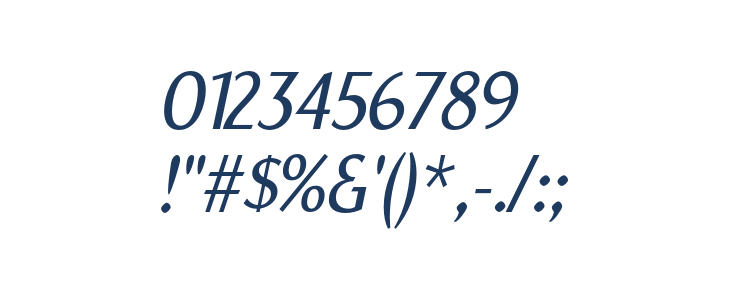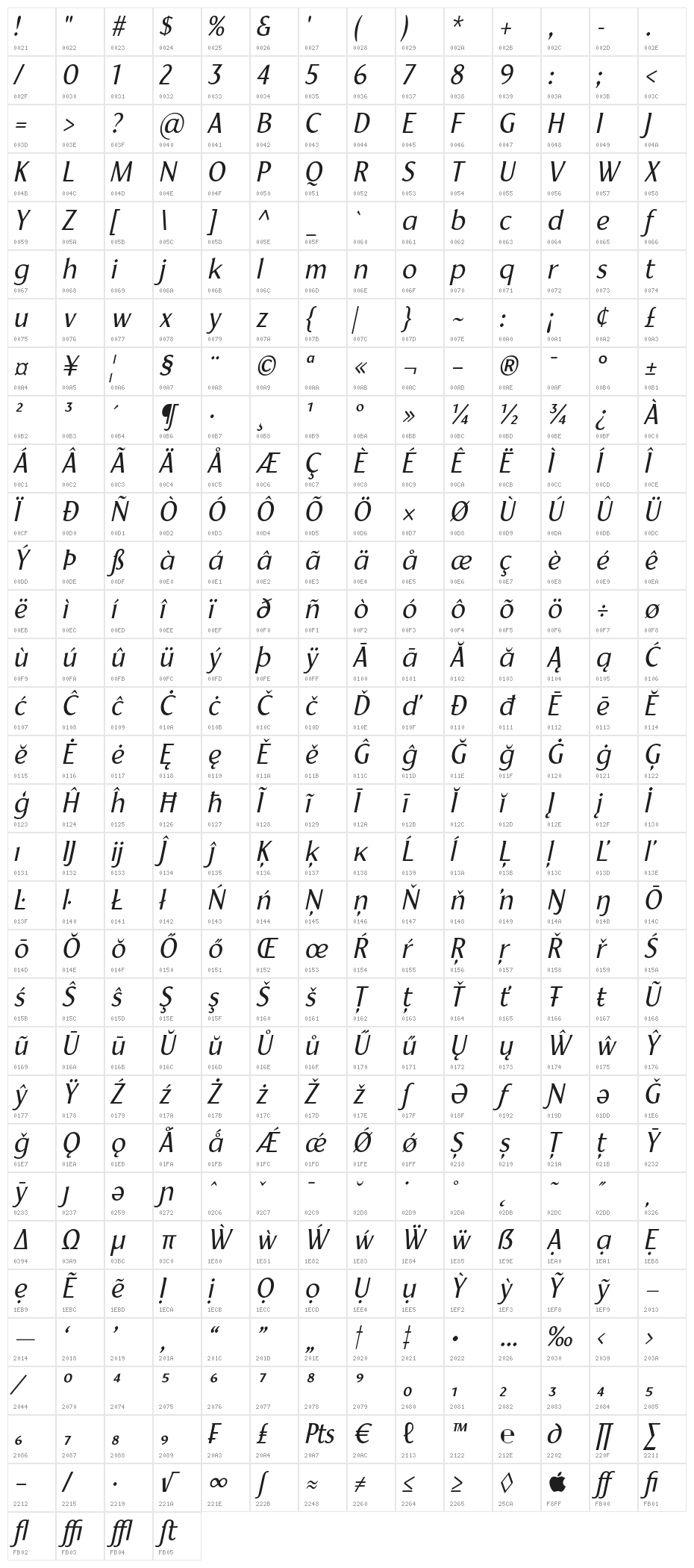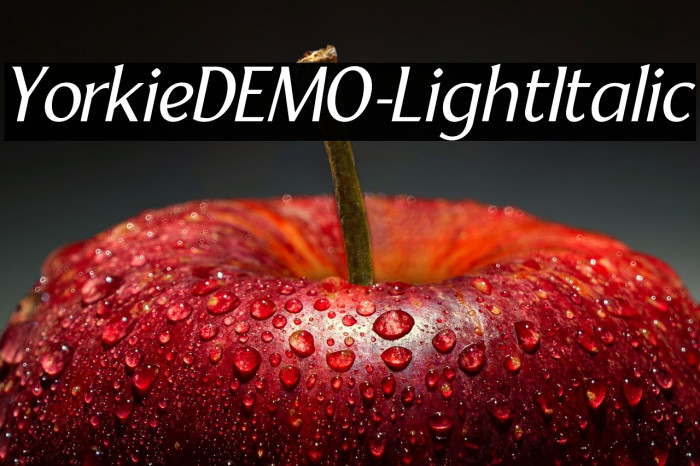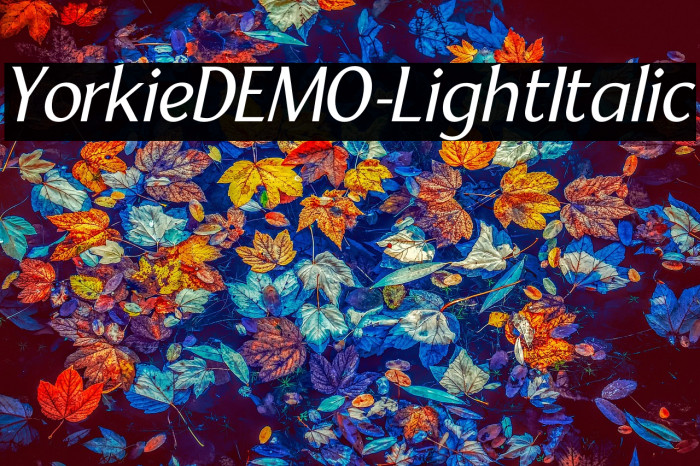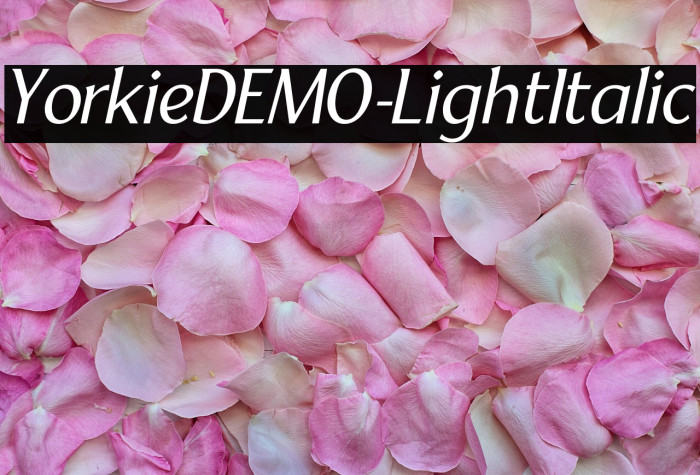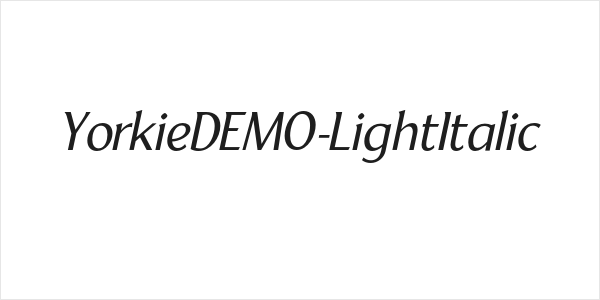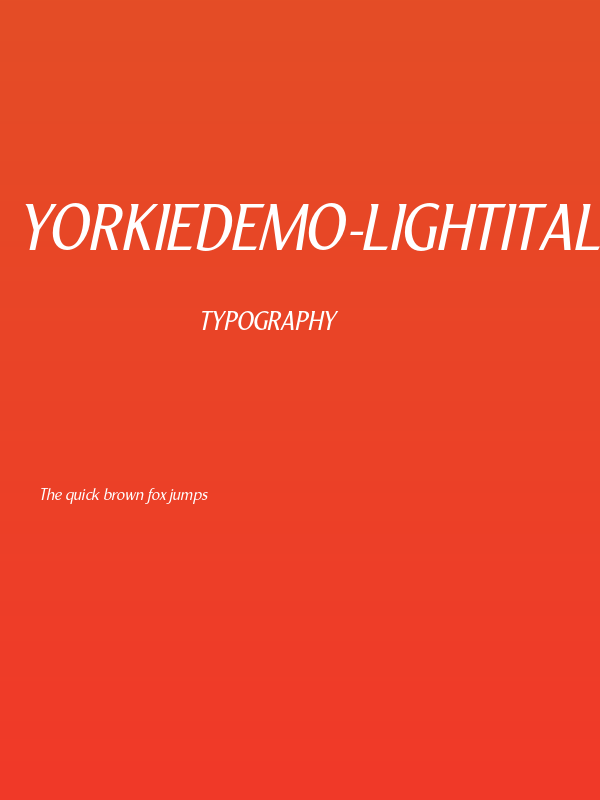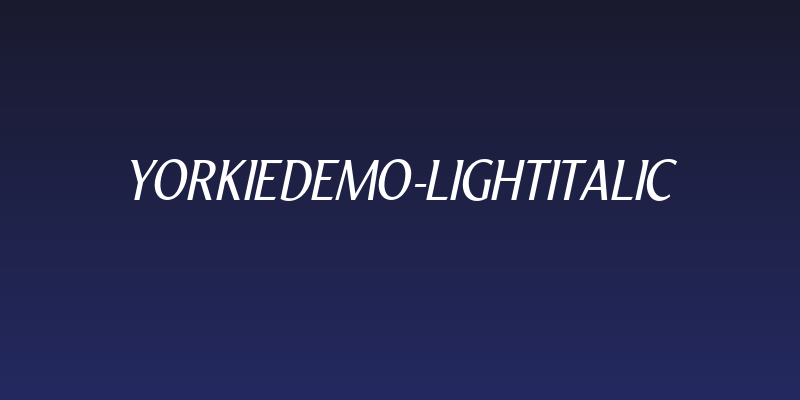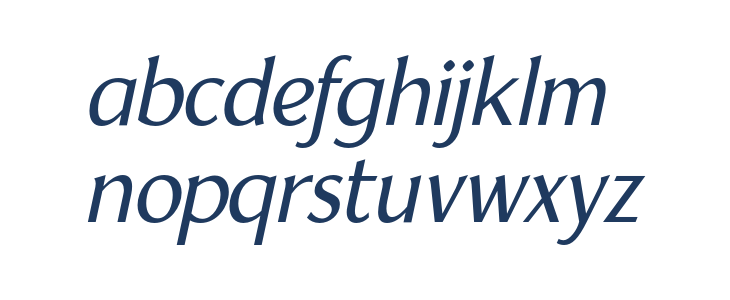
YorkieDEMO-LightItalic Font
YorkieDEMO-LightItalic Description
This font exhibits a sleek and elegant design with a light and italicized style. The characters are slightly slanted, giving a sense of motion and sophistication. The strokes are thin and consistent, contributing to a refined and modern appearance. The uppercase letters are tall and narrow, while the lowercase letters maintain a balanced proportion. The numerals are clear and distinct, ensuring readability. Special characters are well-defined, adding versatility to the font's usage. Overall, the font's design is suitable for projects that require a touch of elegance and modernity.